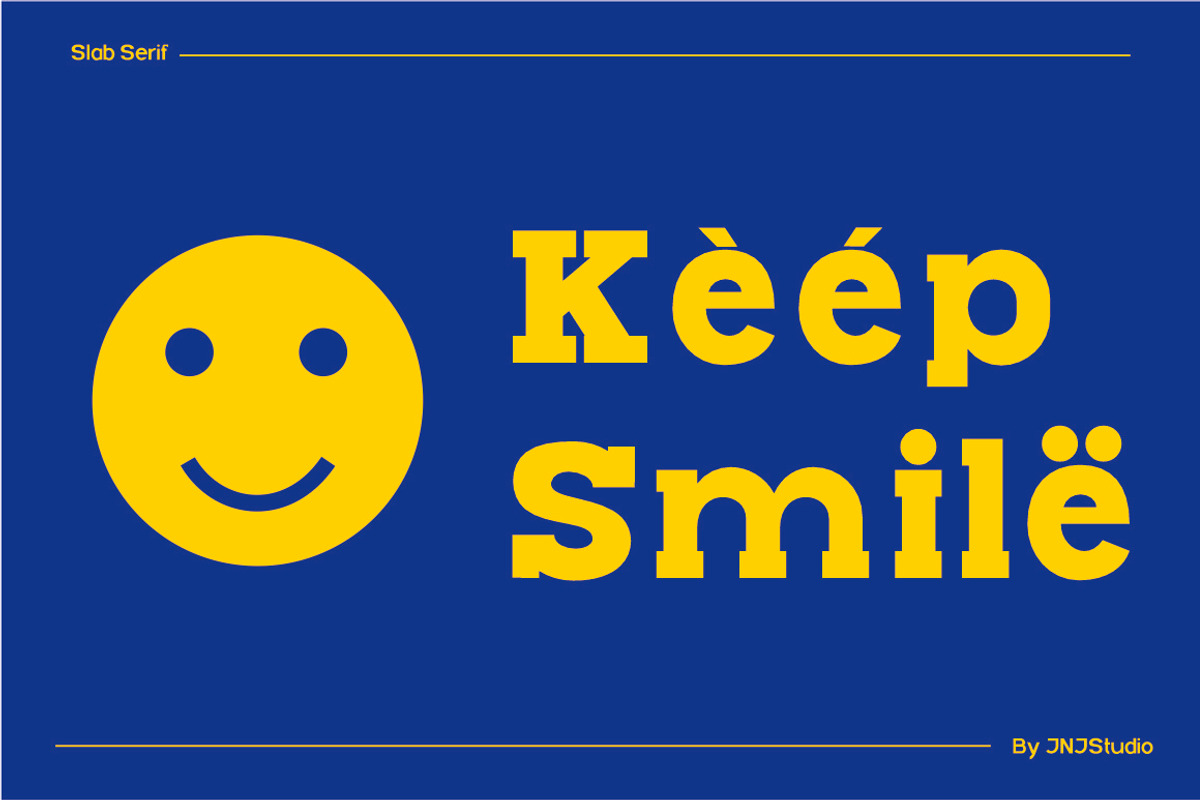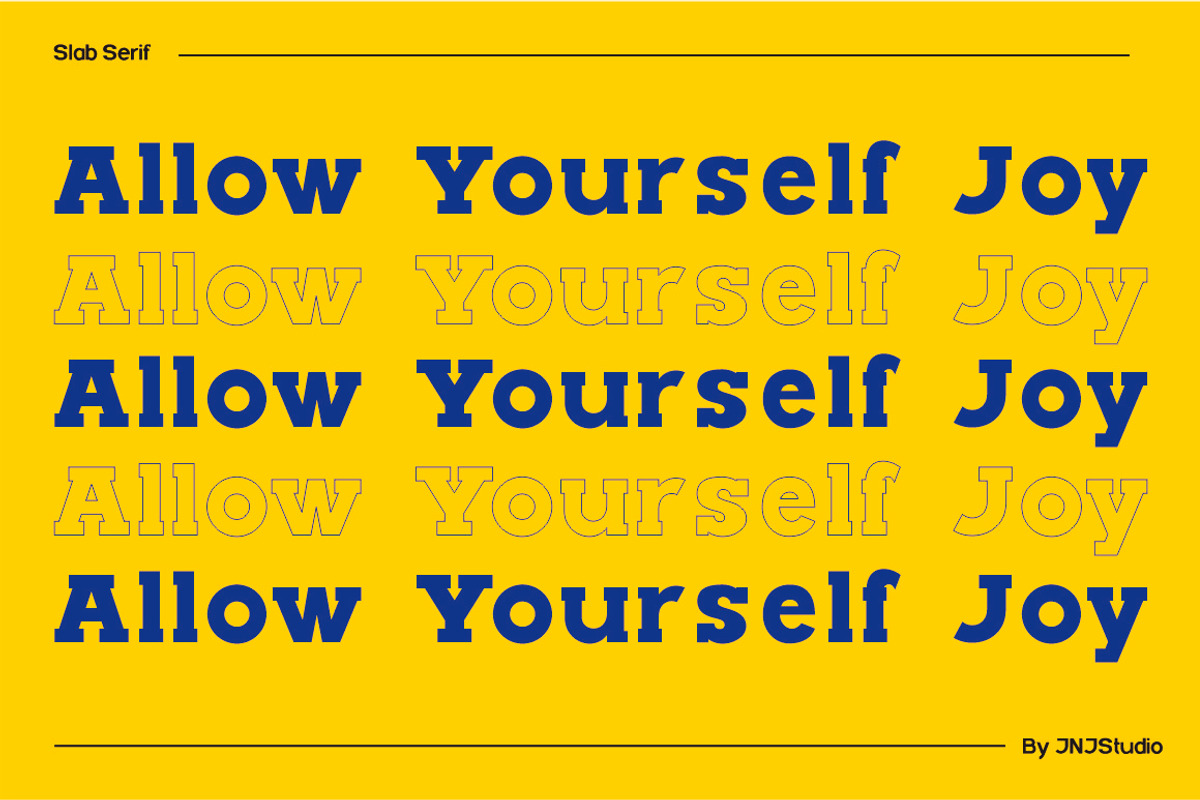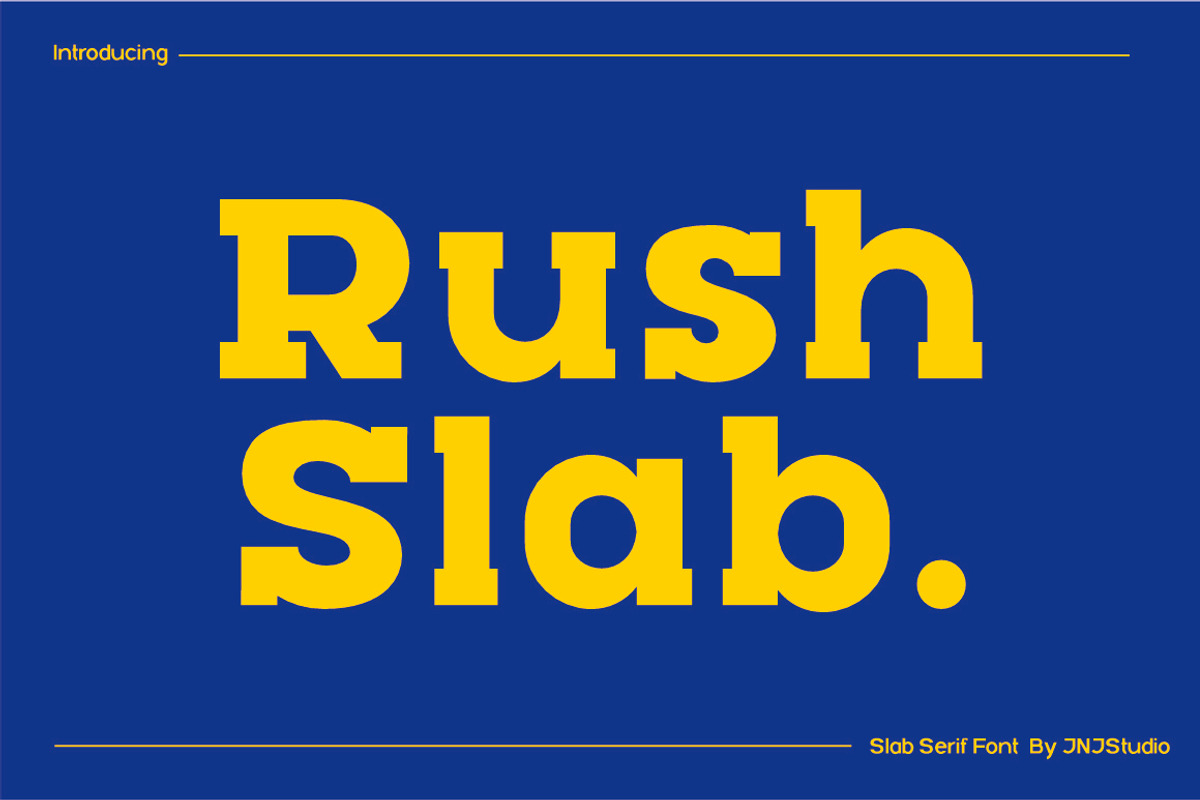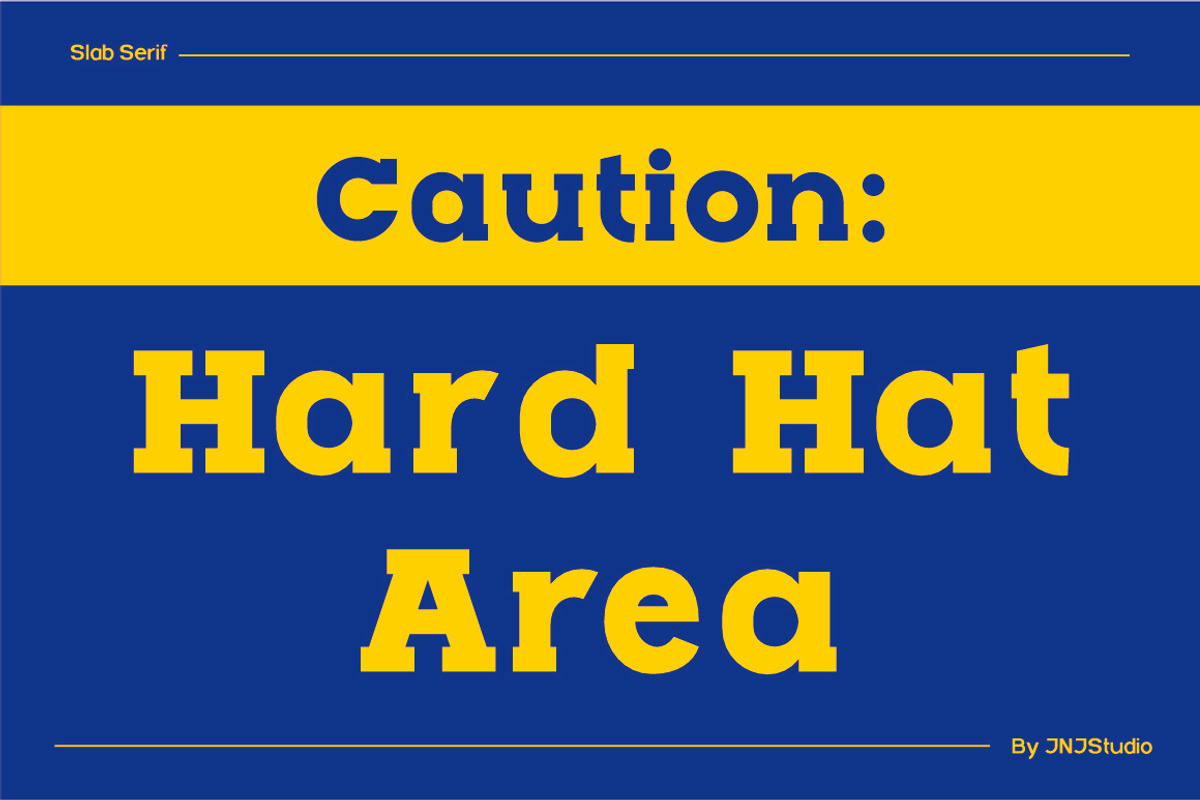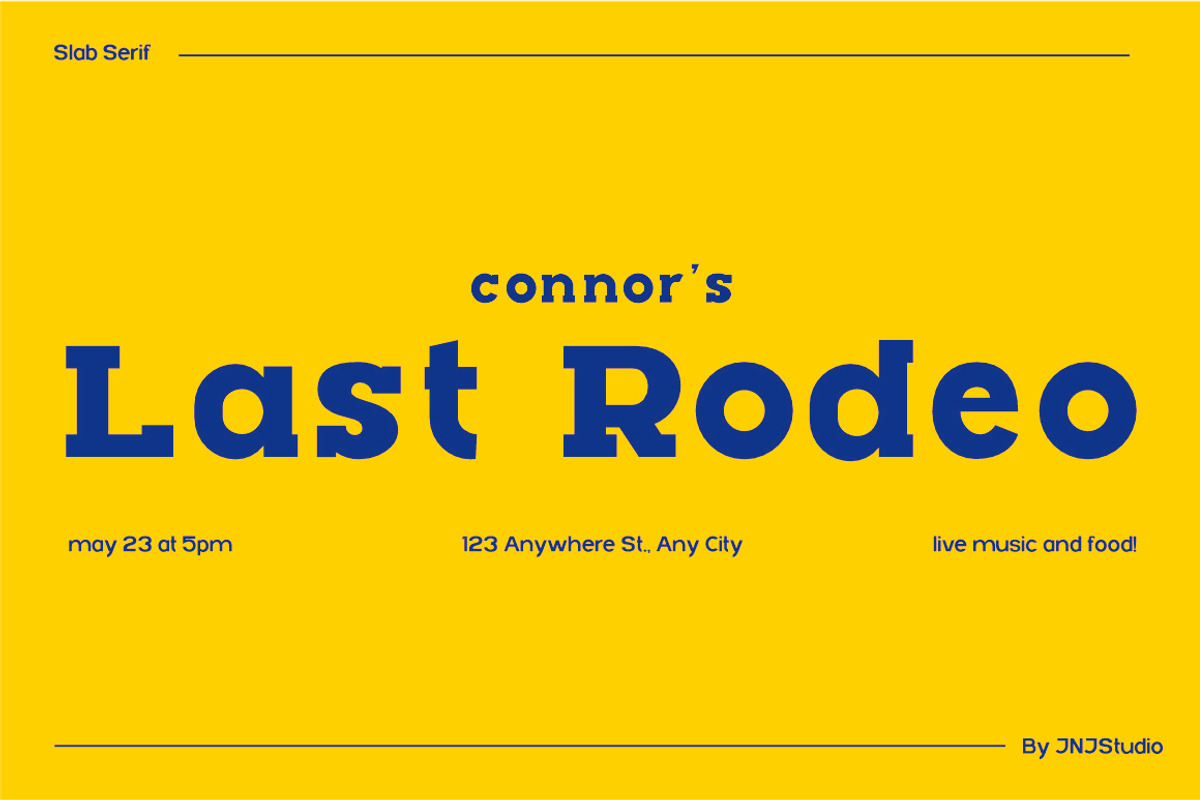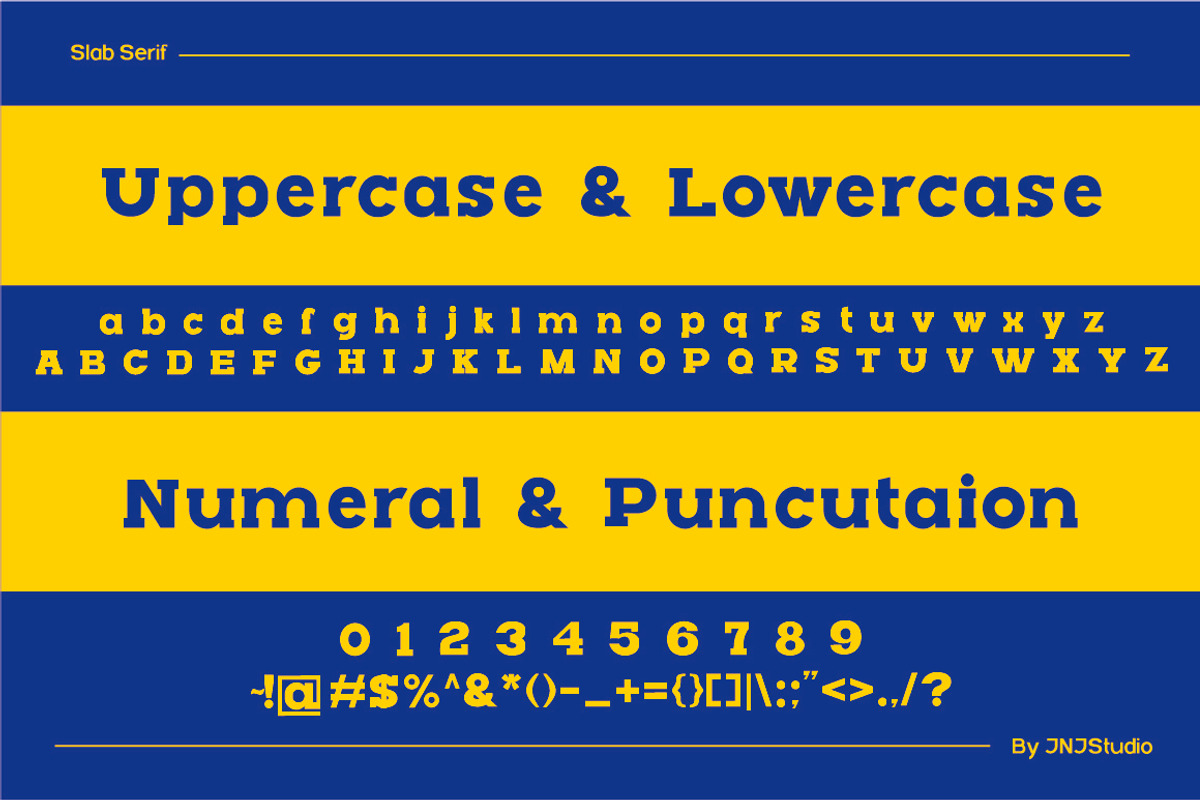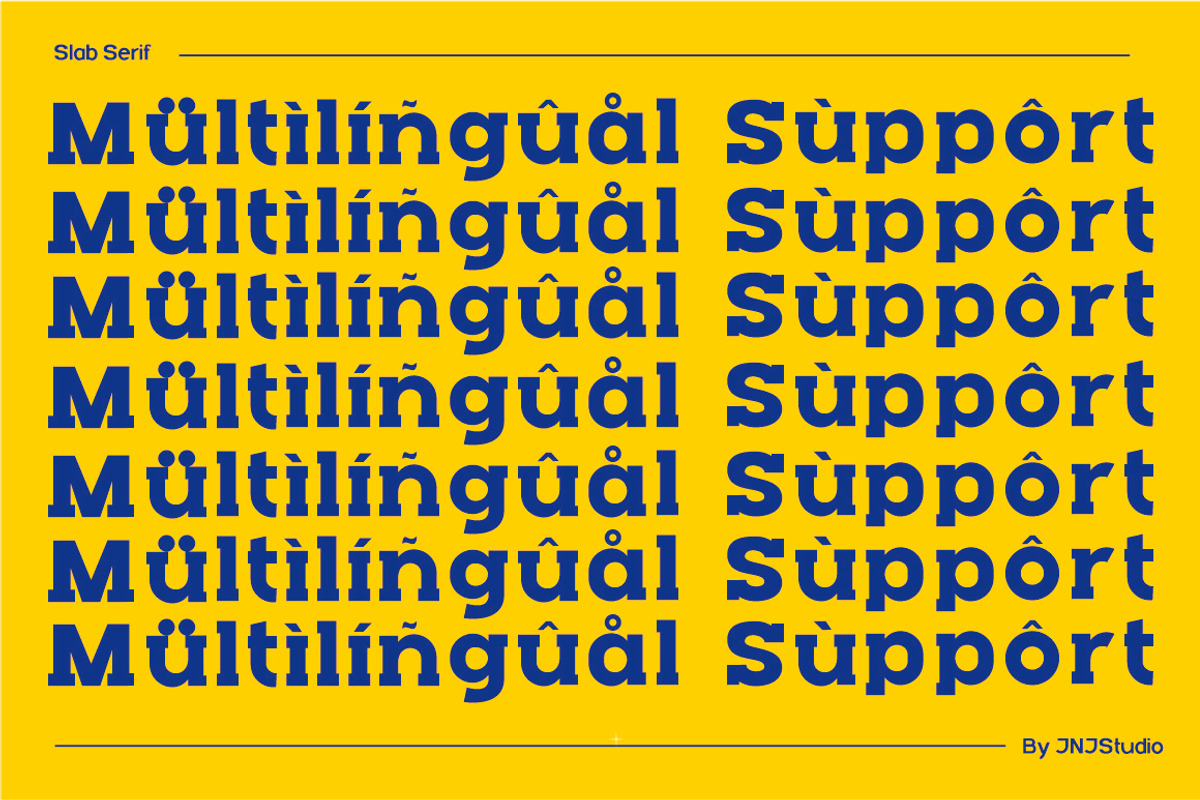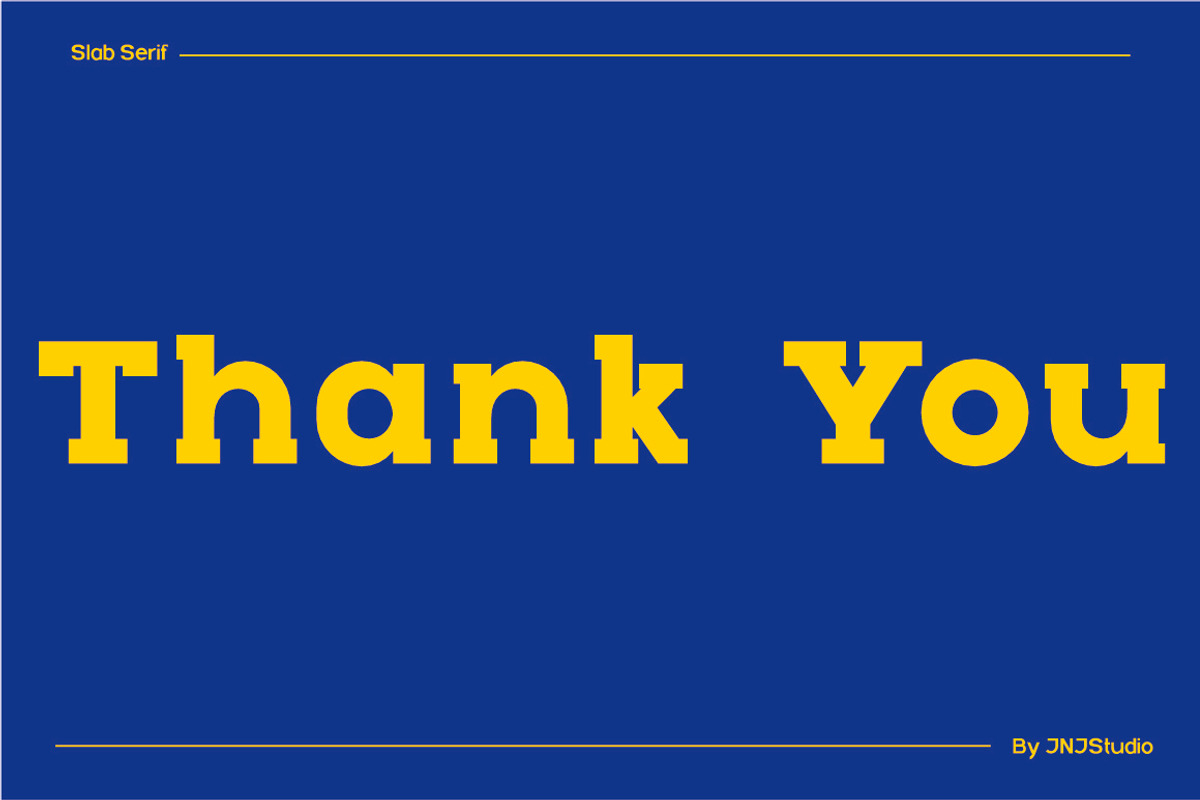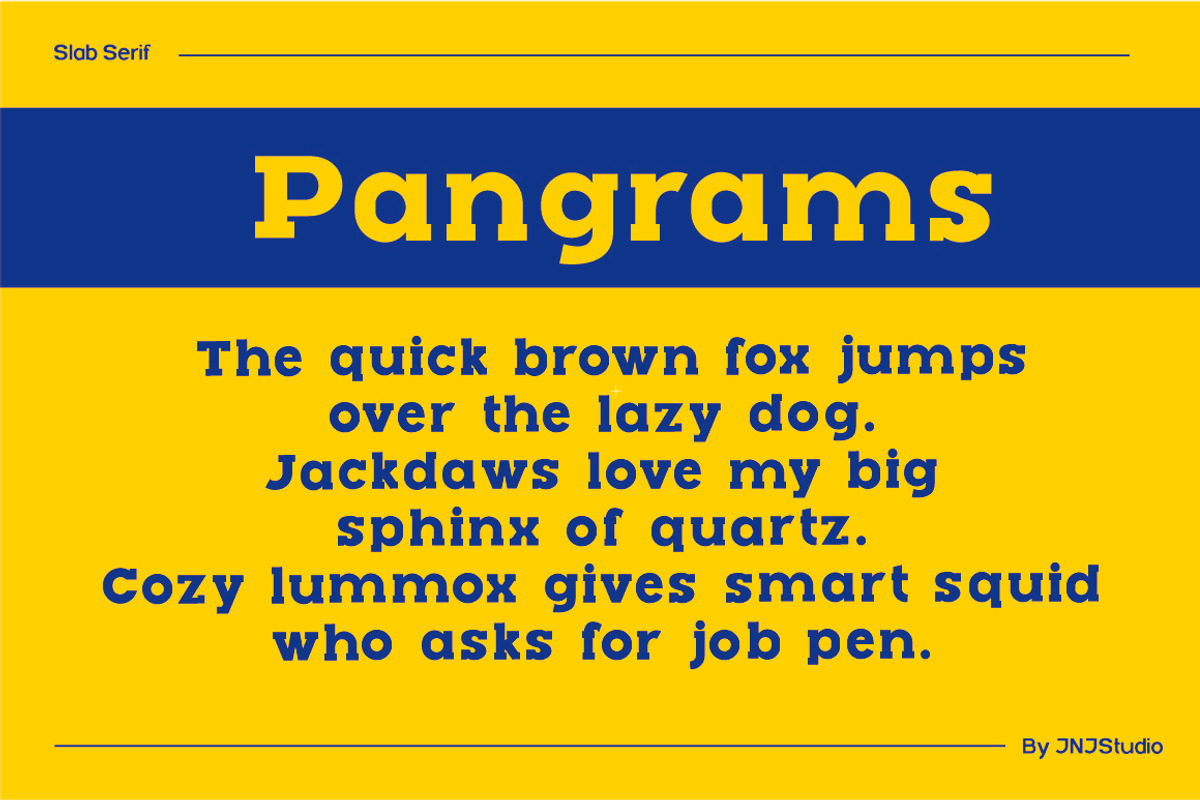
Rush Slab Serif
Introducing "Rush Slab" is a bold and confident slab serif typeface that strikes a perfect balance between vintage charm and modern utility. Designed with thick, block-like serifs and a solid structure, Rush Slabi brings a sense of strength and reliability to any design.
This font exudes character with its geometric proportions and slightly condensed letterforms, making it ideal for impactful headlines, branding, posters, and editorial use. Each glyph is crafted to maintain legibility while delivering a punch of personality, whether on print or screen.
Rush Slab stands out with its:
- Strong horizontal emphasis and sturdy slab serifs
- Consistent stroke width for a clean, cohesive appearance
- Retro-inspired yet versatile design, suitable for both modern and classic aesthetics
Whether you're creating a bold identity or adding a rugged feel to your layout, Rush Slab delivers a distinctive voice that commands attention.